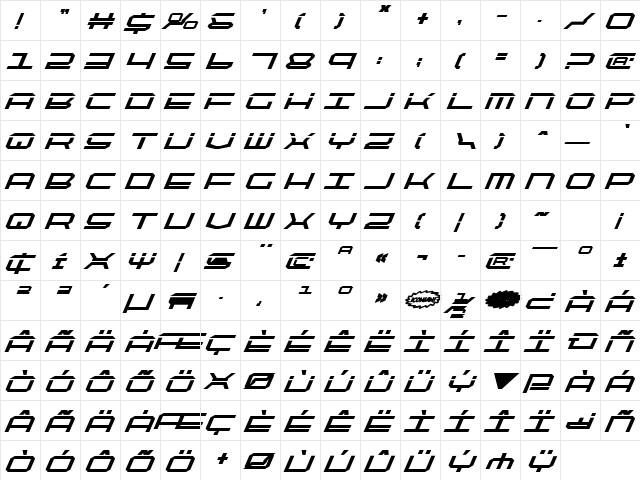
QuickTech Bold Italic Font Preview
| Designer | Dan Zadorozny |
Design Context for QuickTech Bold Italic Typeface
QuickTech Bold Italic channels digital-age aesthetics through its sharp, structured letterforms — ideal for brands that want to signal innovation. The slanted form adds forward momentum and visual energy. The heavy weight commands attention and anchors typographic hierarchies.